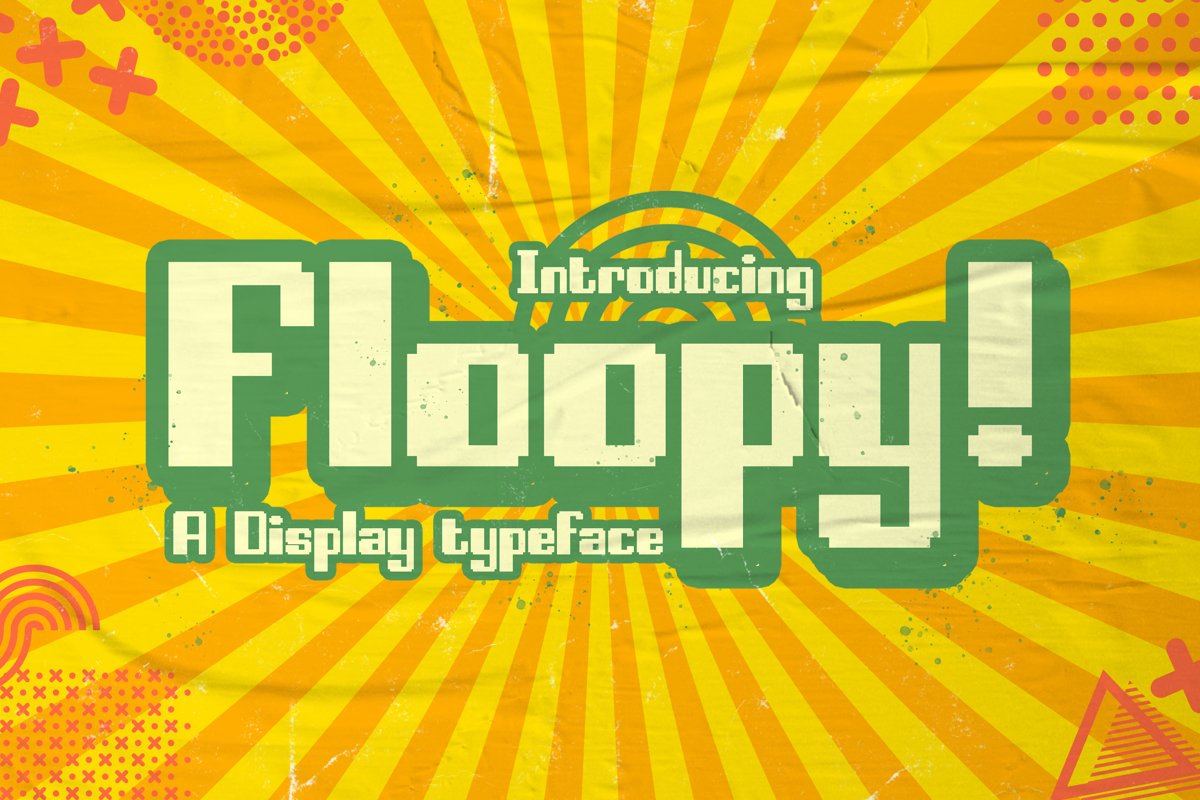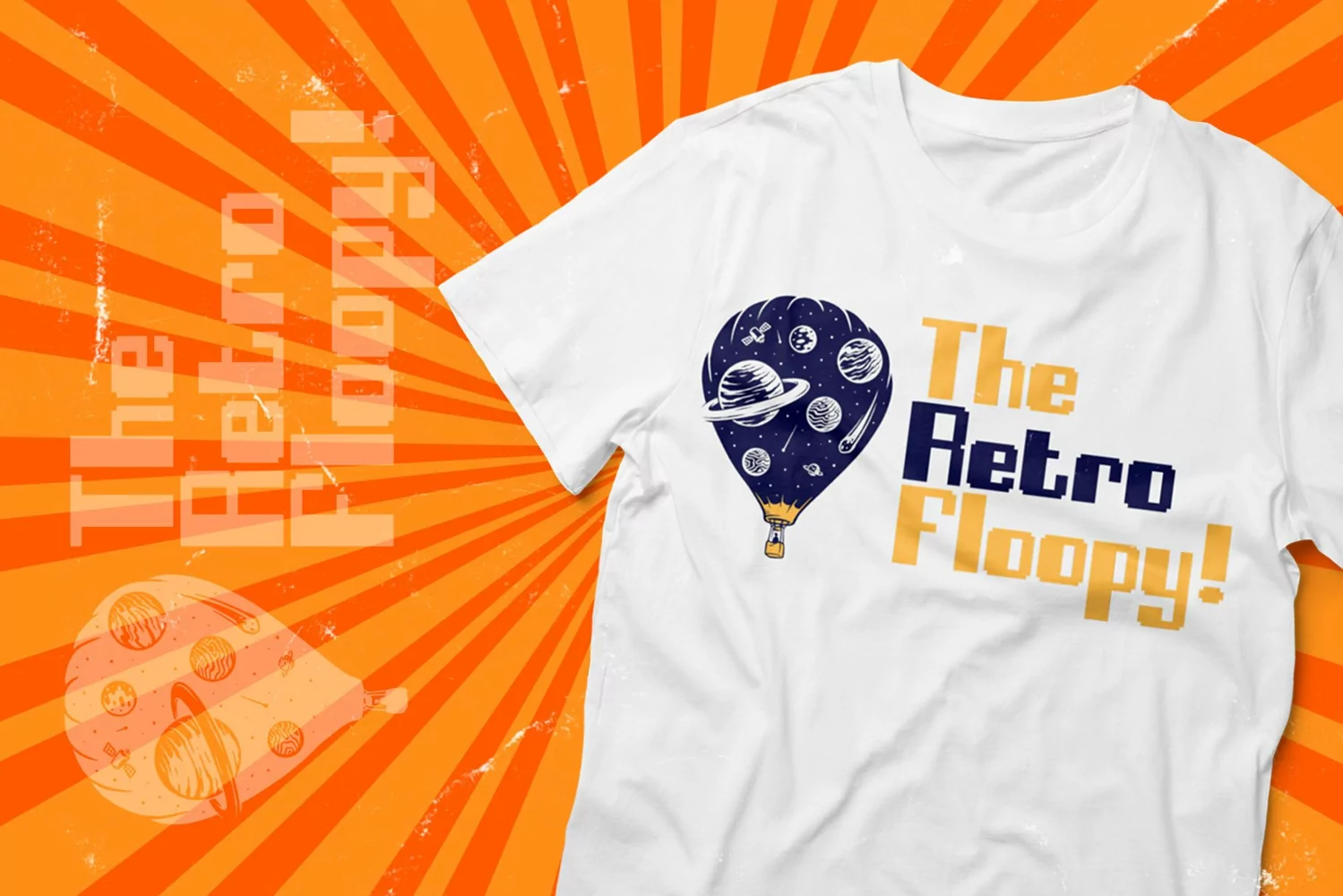
Floopy is a retro display typeface. Perfect for display, branding, gaming needs, logo, logotype, poster, print, t-shirt, cap, merchandise, packaging, event needs and many more.